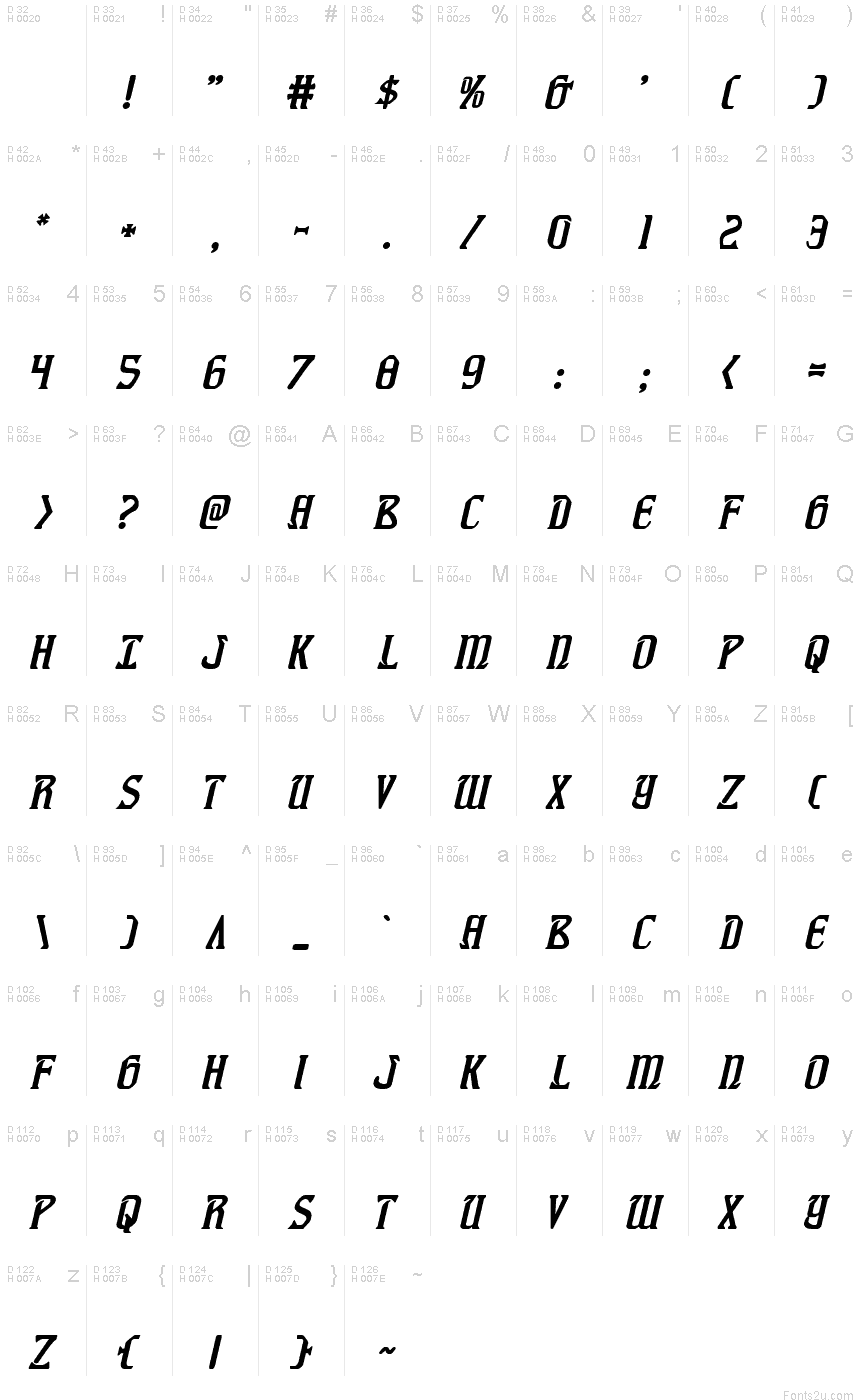
Fiddler's Cove Italic from Iconian Fonts is a free old-school decorative display font with a steep forward lean and the flair of painted fairground lettering. Tall, narrow letters combine strong thick-thin contrast with forked serifs, curled inner strokes, and sharp cuts that keep the dark forms lively.
Carnival, sideshow, and vintage entertainment themes make a convincing setting for poster titles, event graphics, and music packaging. The hooked tips and sweeping curves also suit theatrical branding, where the lettering can echo ornamental borders and hand-painted signs.
Fiddler's Cove Italic